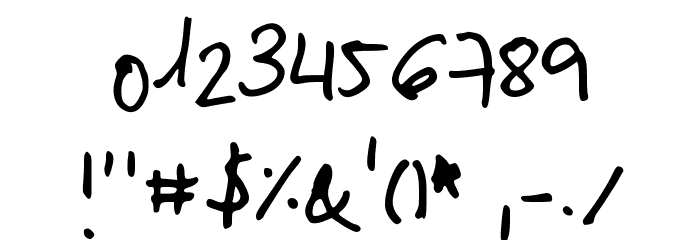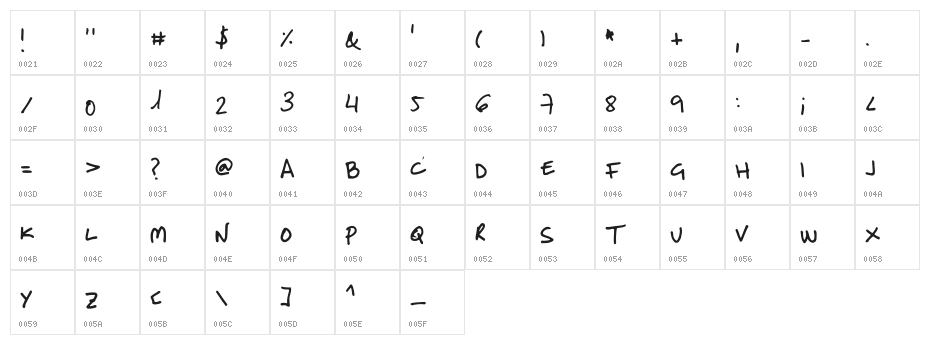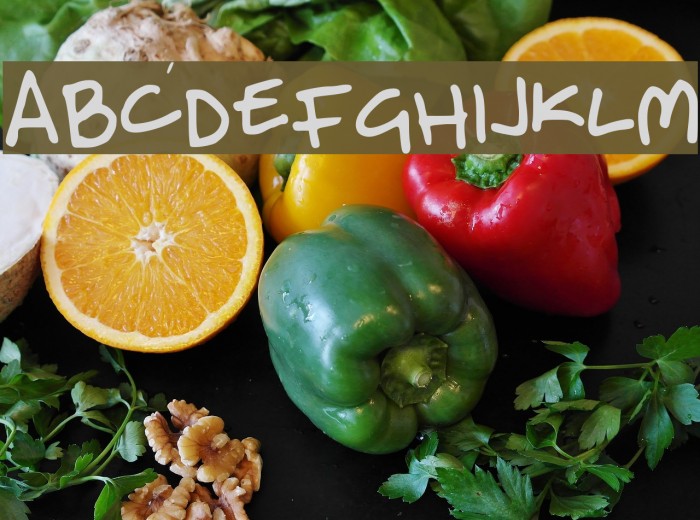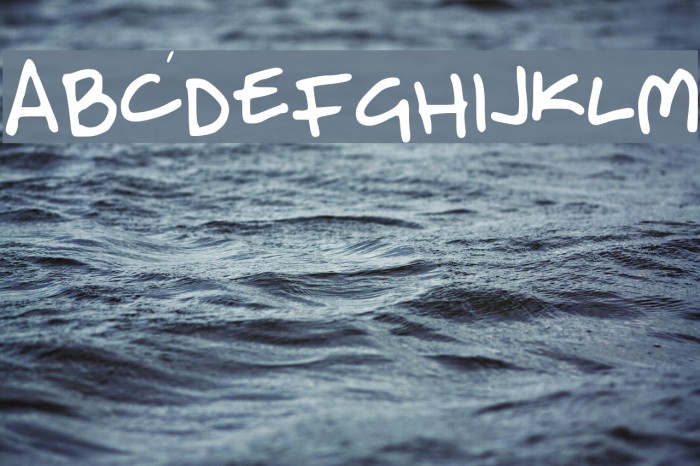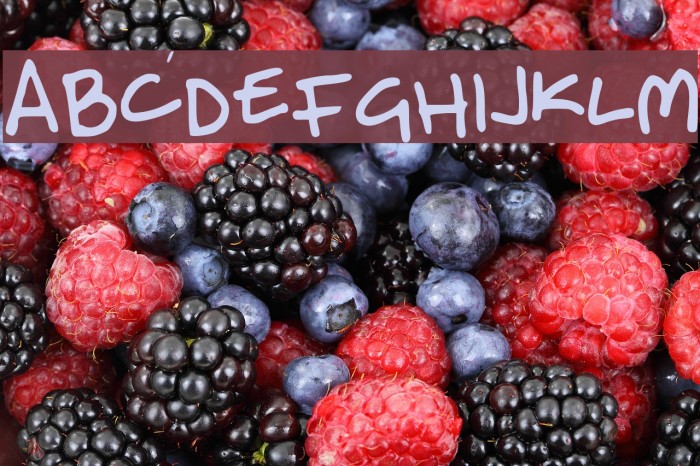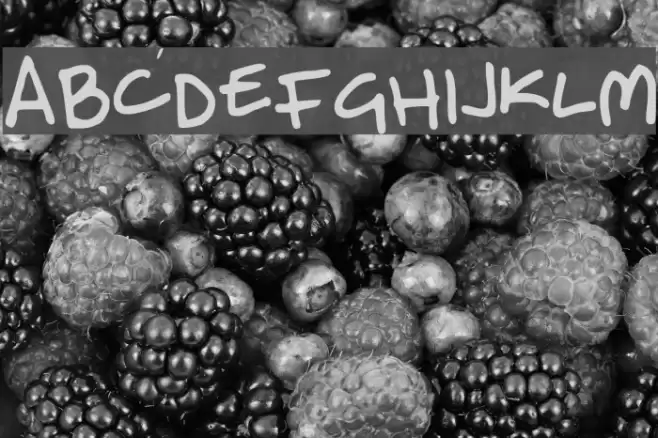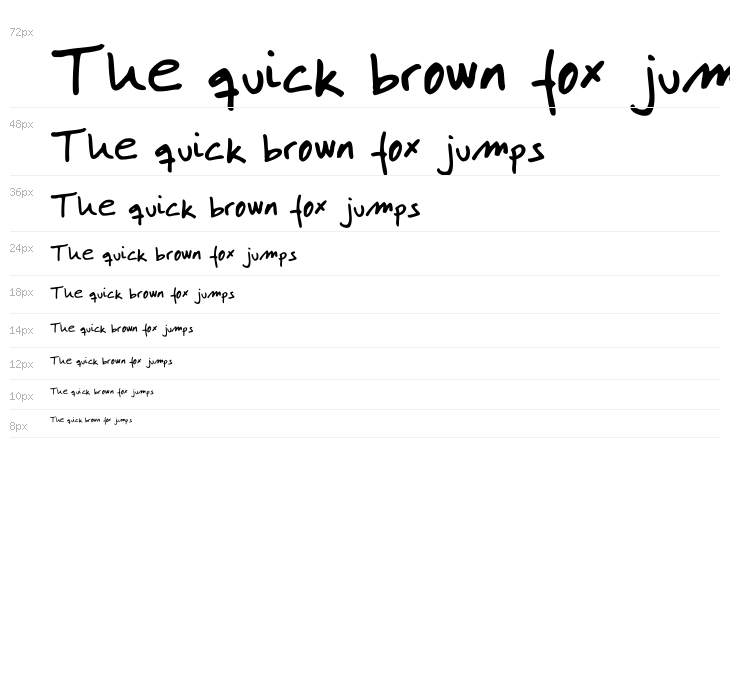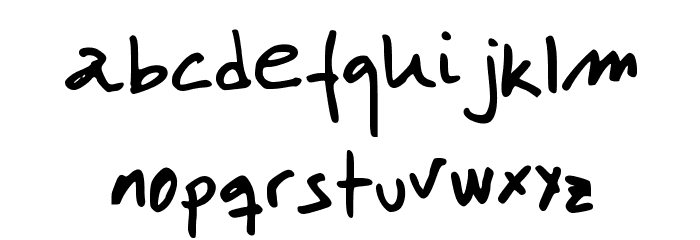
LabMol Font
LabMol Description
This font features a casual, handwritten style with a playful and informal appearance. The characters are slightly uneven, giving it a natural and organic feel. The uppercase letters are bold and prominent, while the lowercase letters maintain a consistent flow, enhancing readability. Numbers and special characters are crafted with the same informal touch, making them blend seamlessly with the alphabet. The overall design is approachable and friendly, suitable for projects that require a personal or human touch.
| Use Case | Headlines, Informal text, Personal projects |
| Proposed Projects | Ideal for greeting cards, personal blogs, informal invitations, and children's book illustrations. |